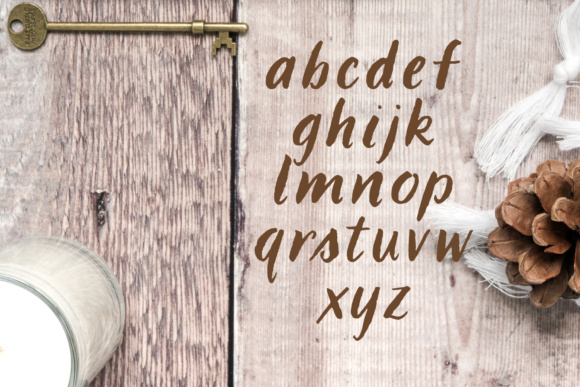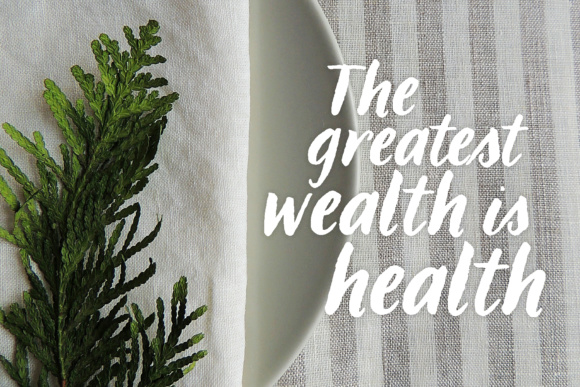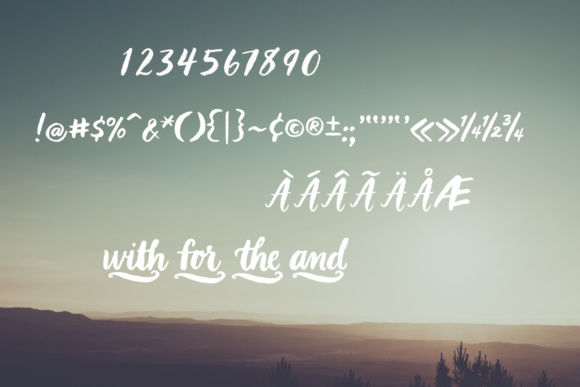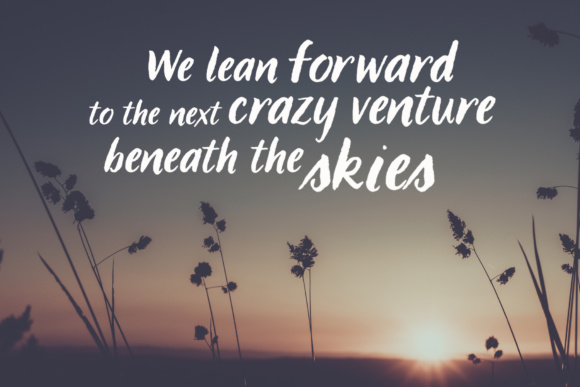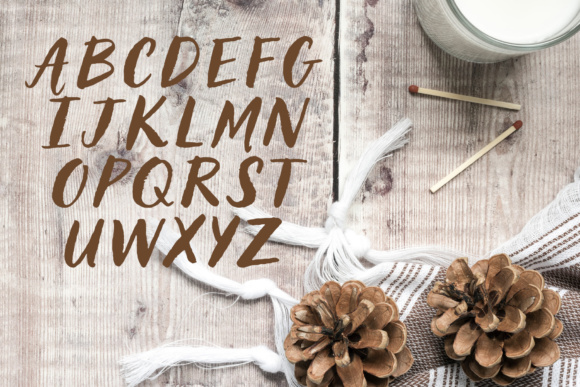
HomeScript FontsLBBrushy Font Script Fonts LBBrushy Font FacebookXPinterestWhatsApp LBBrushy Font Poster 2 LBBrushy Font Poster 3 LBBrushy Font Poster 4 LBBrushy Font Poster 5 LBBrushy Font Poster 6 About LBBrushy Font LBBrushy is a brushed hand-lettered font. DOWNLOAD ON CREATIVE FABRICAThis font is sold and delivered by Creative Fabrica. Font Canyon may earn a commission if you buy through this link. People also explored Prickle Font Alexander™ Font Bishafa Font Blustina Script Font Hello Freshtea Font Abraly Font Mazie Font Butterfly Heart Font Kadijha Font 355 0 TagsLBBrushy Font Previous articleCandy Land FontNext articleMonalisa Font LEAVE A REPLY Cancel reply Comment: Please enter your comment! Name:* Please enter your name here Email:* You have entered an incorrect email address! Please enter your email address here Website: Save my name, email, and website in this browser for the next time I comment. Personal Use Free Mandara Personal Use Free Read more about this font Ginóra Personal Use Free Read more about this font Husky Stash Personal Use Free Read more about this font Hagia Signal Personal Use Free Read more about this font BLOG How to Cut Any Font on Cricut: Convert a Font to SVG (Free) Turn any font into a clean SVG so it cuts crisp on Cricut - a quick 3-step workflow using a free font-to-SVG tool. Top 7 Google Fonts Alternatives for Faster and Privacy-Friendly Web Design (2025) Top 10 Handwritten Fonts That Elevate Your Designs Fonts That Capture the Spirit of New York City